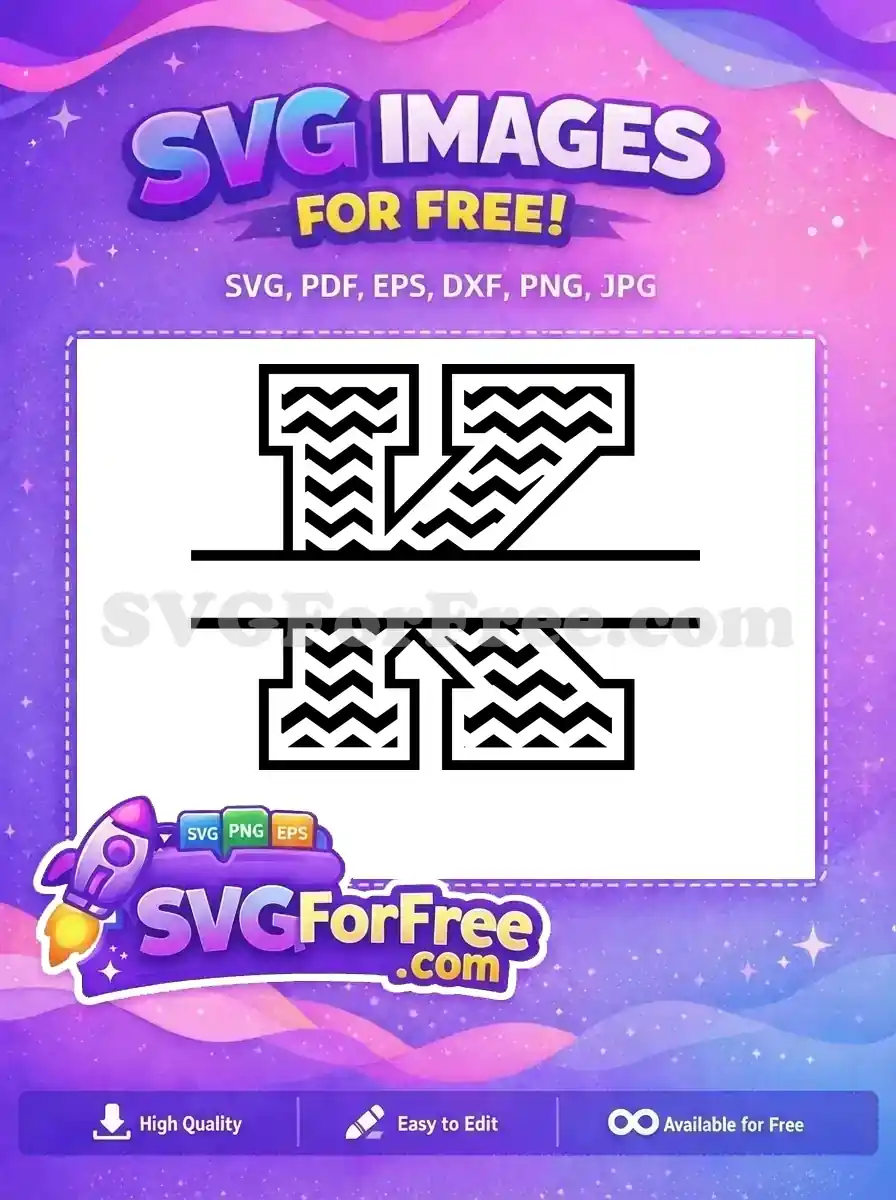
Free Monogram Font Free Letter K Initial Free SVG – Instant Download
A unique, free capital ‘K’ design featuring a horizontal bar filled with an intricate geometric wave pattern.